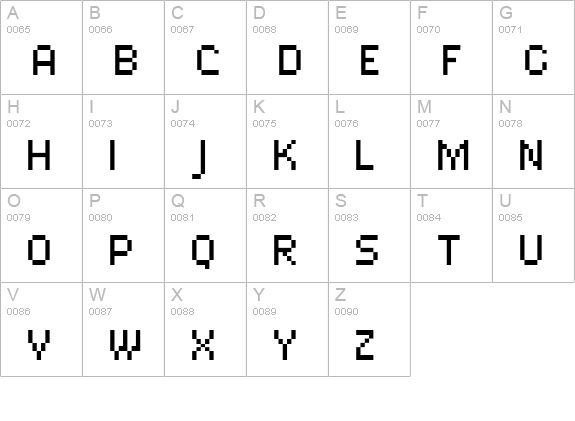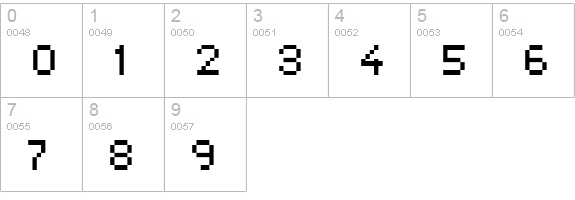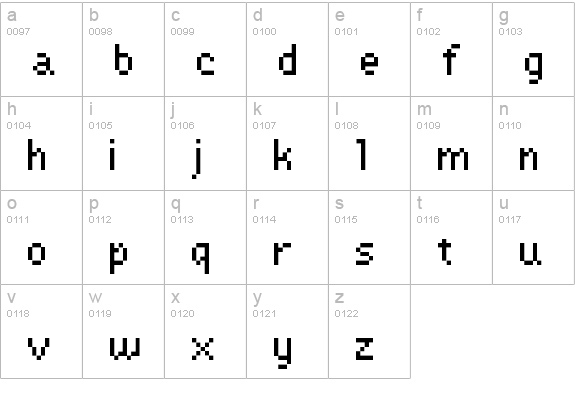
Lexipa Font Details
Introducing Lexipa font, a stunning display typeface that combines elegance with modernity. With its sleek and sophisticated letterforms, Lexipa is perfect for adding a touch of class to your designs. Whether you're creating eye-catching logos, captivating headlines, or stylish branding materials, this font is sure to make a lasting impression. But what sets Lexipa apart from other fonts is that it is not only visually appealing, but also freely available to download. Yes, you heard it right! Lexipa is a free font, making it accessible to designers and creatives of all levels. No need to worry about breaking your budget or compromising on quality - Lexipa offers the best of both worlds. To get your hands on this incredible font, simply head over to FontsMarket.com. There, you'll find a treasure trove of fonts, including Lexipa, waiting to be discovered. With just a few clicks, you can have Lexipa downloaded and ready to use in your next design project. So why wait? Embrace the beauty and versatility of Lexipa font, and elevate your designs to new heights. Whether you're looking to add a touch of elegance or make a bold statement, Lexipa has got you covered. Don't miss out on this opportunity to enhance your creative endeavors. Download Lexipa for free at FontsMarket.com today!